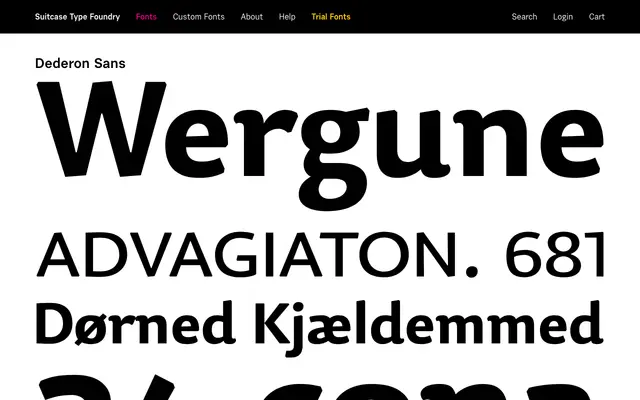
A sans-serif companion to Dederon Serif, designed as part of a matched family from the Prague-based Suitcase Type Foundry.
Dederon Sans pairs with Dederon Serif to form a coherent type family, a structure common in Central European type design where serif and sans cuts share underlying proportions. The page offers limited detail on weights and styles, suggesting a compact family rather than an expansive system. Suited to editorial and identity work where typographic consistency across serif and sans is a priority.
The name and pairing with Dederon Serif suggest a humanist sans-serif design intended to complement a serif counterpart, typical of Central European type design traditions at Suitcase Type Foundry.